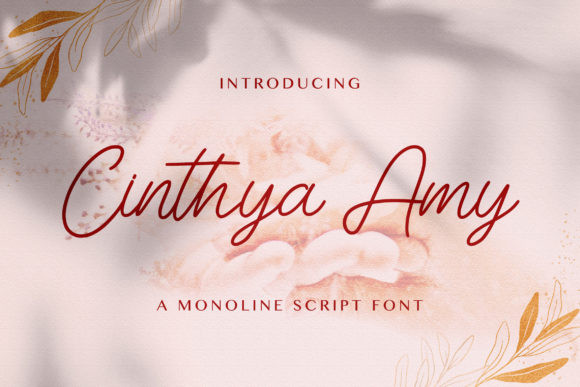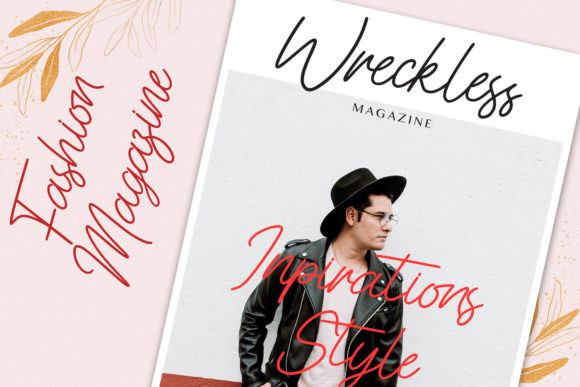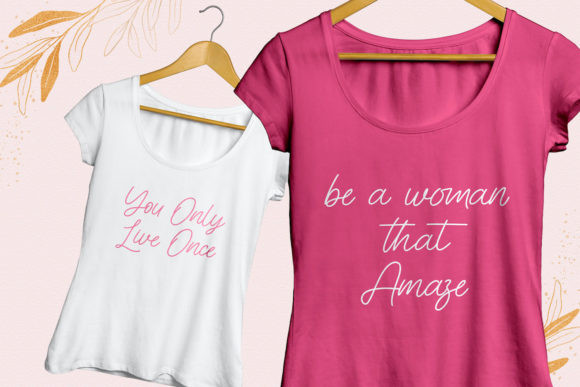
Cinthya Amy Font
Cinthya Amy is a beautiful light handwritten font with a unique feel and a stunning impact. It will add a luxury spark to any design project that you wish to create!